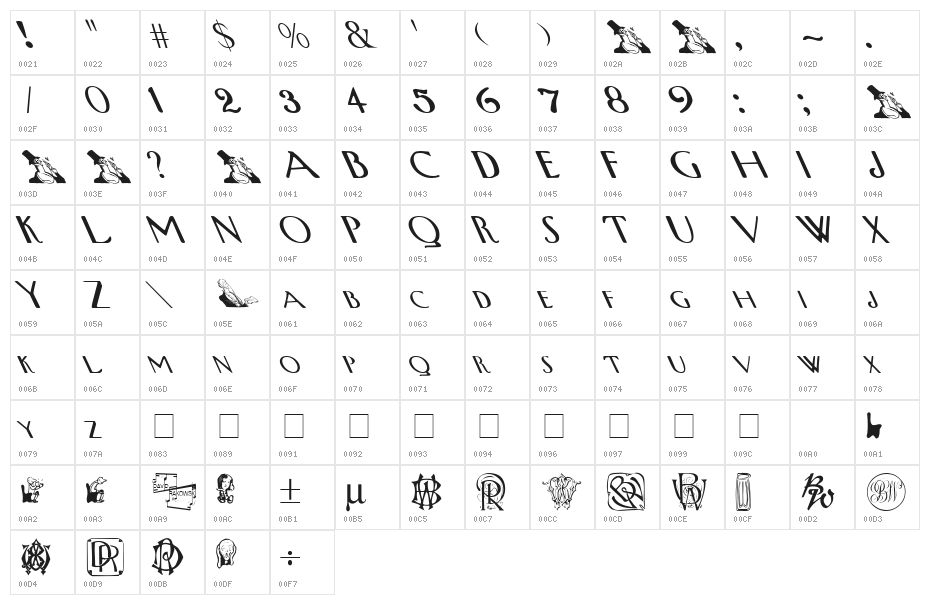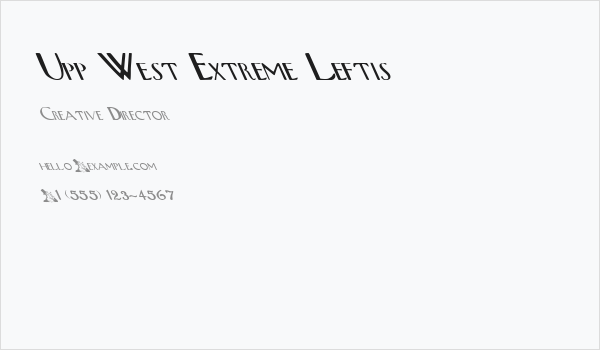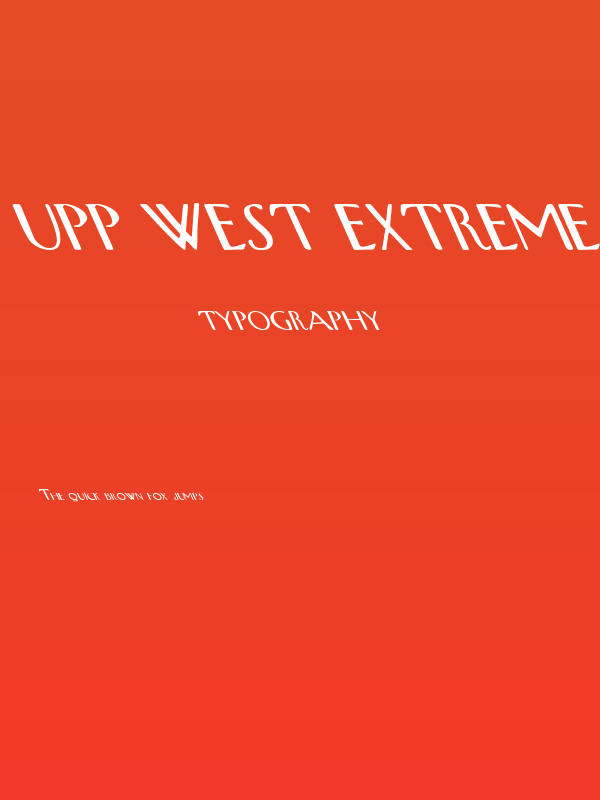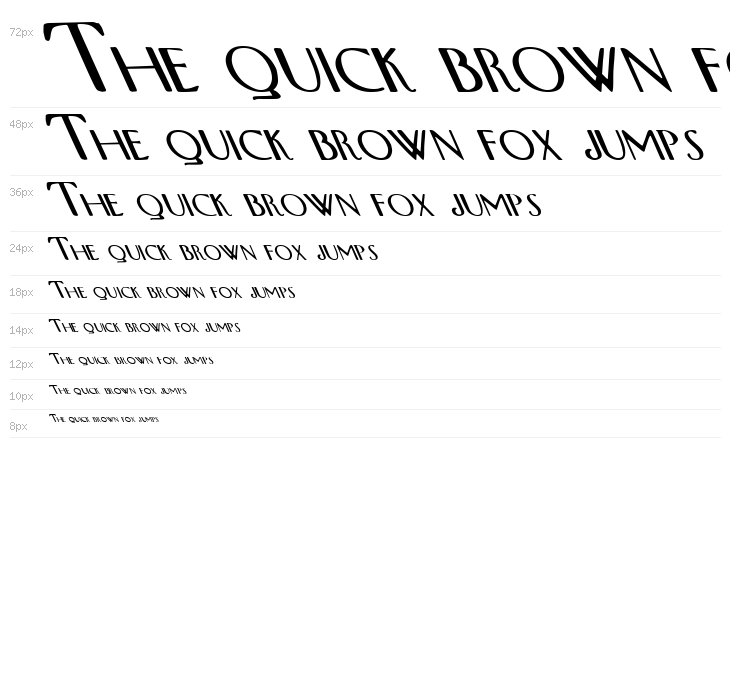
Upp West Extreme Leftis Font
Upp West Extreme Leftis Description
This font features a dynamic and artistic style with a distinct slant, giving it a sense of movement and energy. The uppercase letters are bold and angular, with sharp edges and unique curves that create a striking appearance. The lowercase letters maintain this dynamic style, offering a cohesive look across all characters. Numbers are equally bold and follow the same angular design, ensuring consistency. Special characters are creatively designed, adding to the font's overall artistic flair. This font is perfect for projects that require a bold and expressive typeface.
| Proposed Projects | Ideal for posters, album covers, branding, and any project needing a bold, artistic touch. |